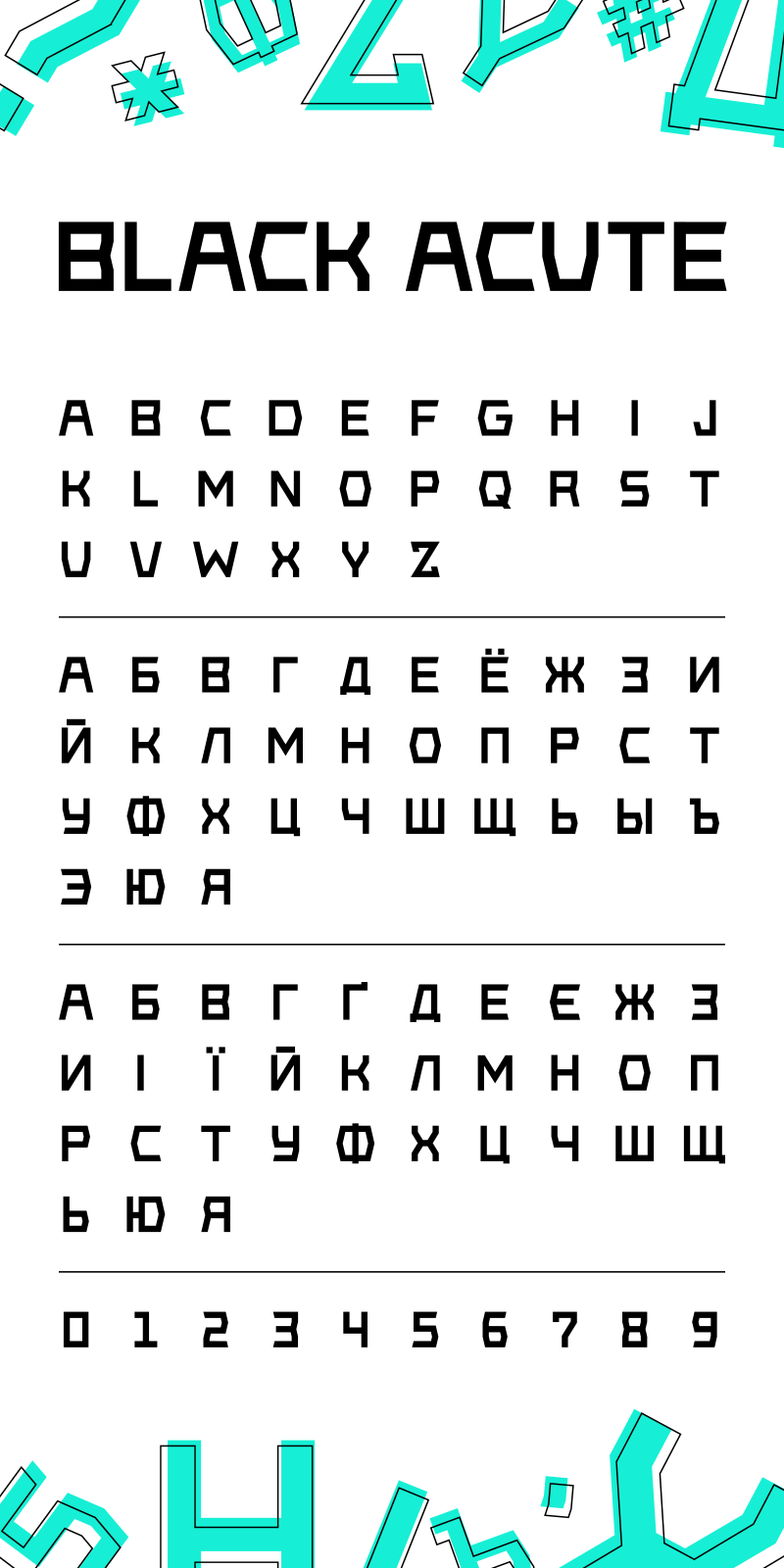
Preview and download Black Acute Font. Created by Tanya Savchenko in Techno Square styles with 100% Free license.
Black Acute font is designed for logos, posters, banners. Use for headings, not solid text. All letters are uppercase only. Free font for personal and commercial use. Font project on behance: https://www.behance.net/gallery/109856957/Black-Acute-FREE-font-%28latin-cyrillic%29 Thanks for your interest in my font. |